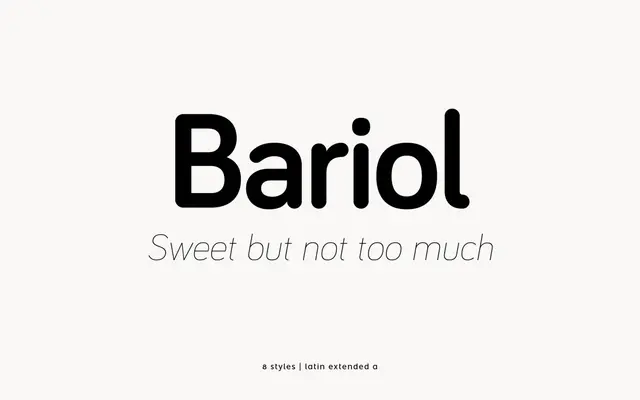
Bariol specimen from atipo foundry
A friendly rounded humanist sans in four weights with italics, paired with a serif and an icon companion across the wider Bariol system.
A humanist sans by atipo foundry with softly rounded terminals, open apertures and a warm tone. The family runs through Thin, Light, Regular and Bold with matching italics for eight styles in total. OpenType features include standard and discretionary ligatures, stylistic alternates, case-sensitive forms, lining, tabular and oldstyle figures, plus pre-designed fractions, numerators, denominators, superscript, scientific inferiors and ordinals. Bariol sits at the centre of a wider system that also includes Bariol Serif and Bariol Icons. Language coverage runs across the main European Latin scripts.
A slightly rounded humanist sans with open apertures, soft terminals and a friendly tone. Designed as a workhorse text family with eight styles and a true italic.